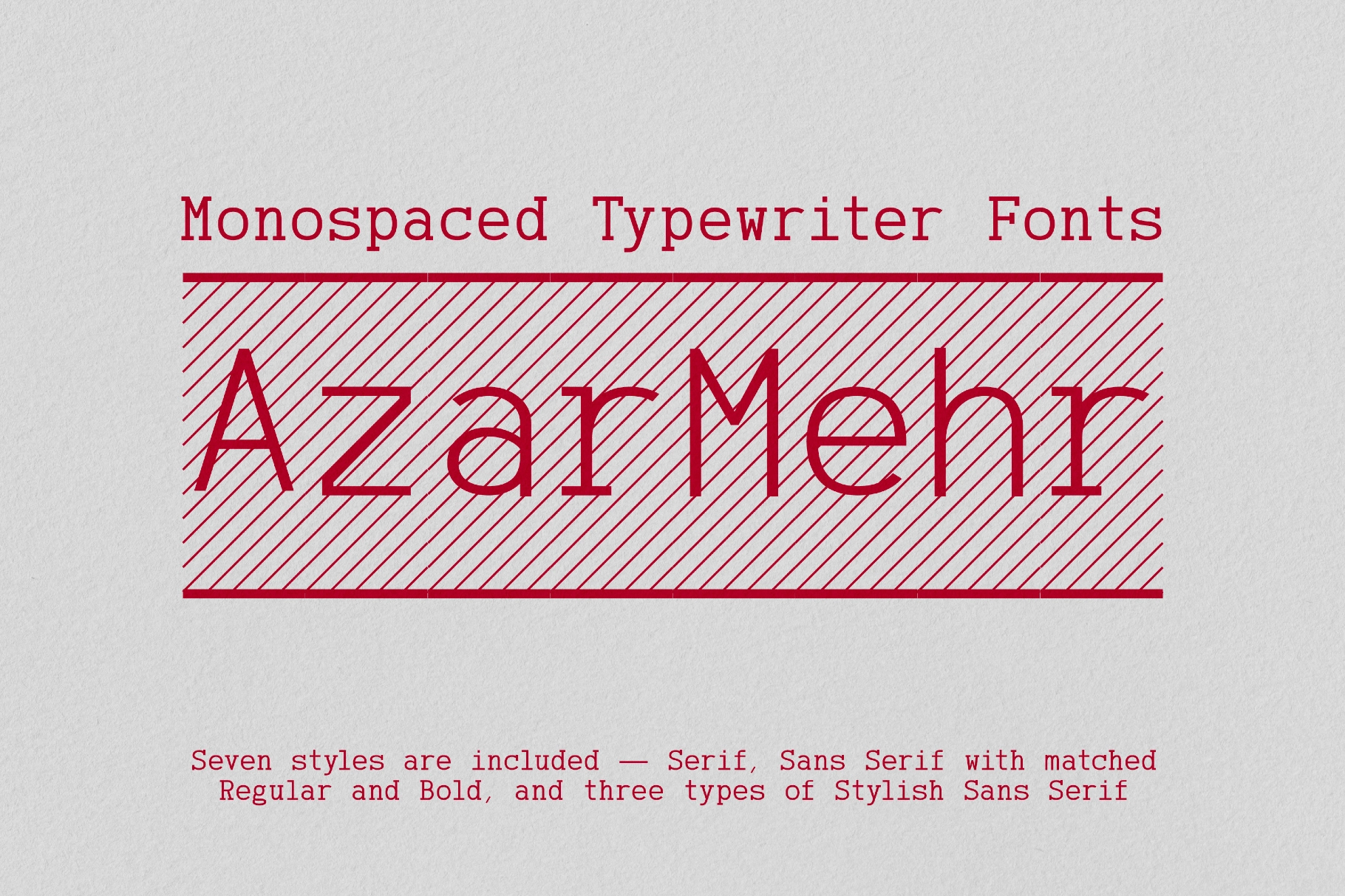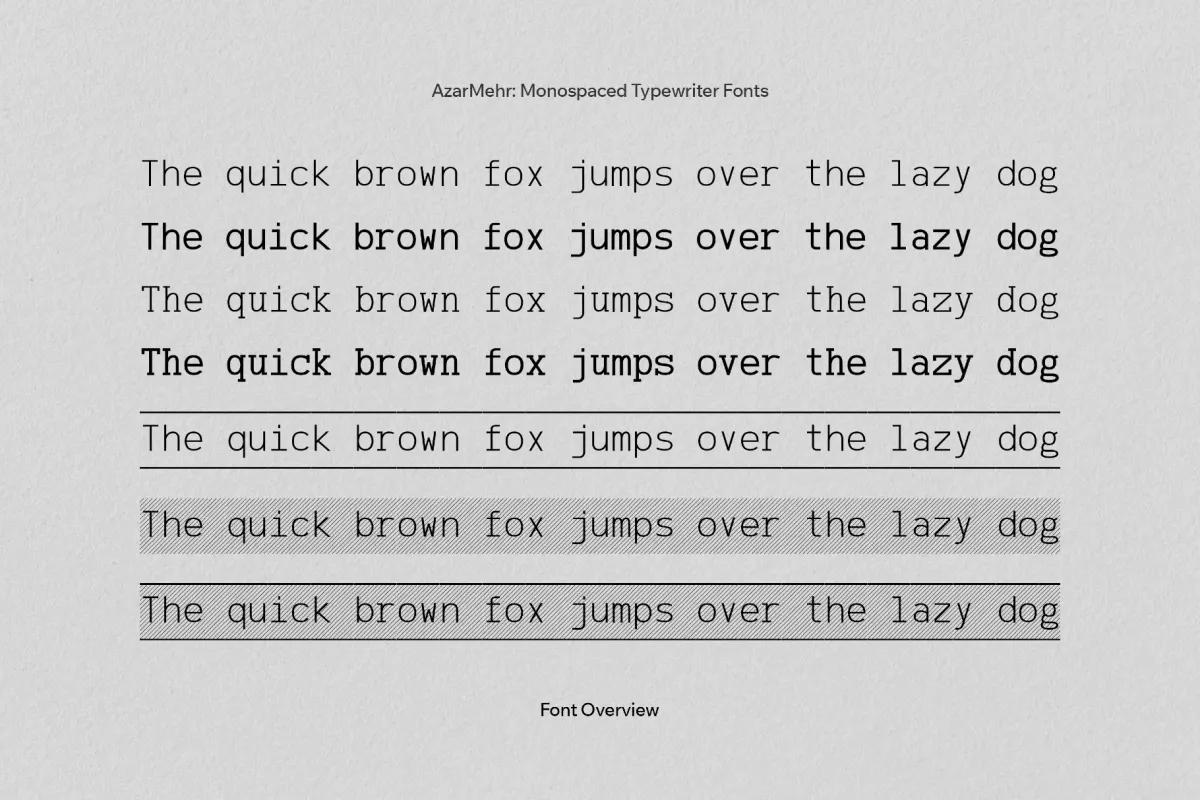
AzarMehr: Monospaced Typewriter Fonts
AzarMehr is a monospaced family with two voices — a clean sans and a classic serif — both drawn on the same fixed-width system. The rounded terminals, open counters, steady spacing, and low-contrast strokes make the texture readable and give it a bright character in headlines.
It is suitable for developer-facing dashboards, code snippets in documentation, minimalist branding for tech products, interface mockups, data-heavy presentations, and product packaging. It also works well for magazines with a digital tone, software tool identity systems, typographic posters, labeling systems, and app wireframes.
Included: uppercase and lowercase letters, numbers, punctuation, basic symbols, and broad multilingual support across Latin and Arabic scripts. Seven styles are included — Serif, Sans Serif with matched Regular and Bold, and three types of Stylish Sans Serif.